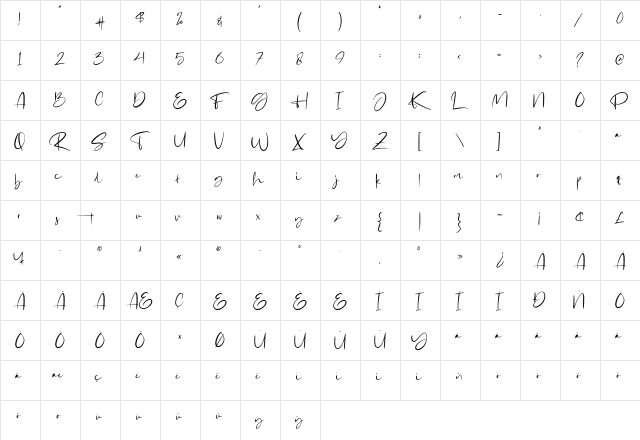
Gabrialle Regular
| Foundry | Stringlabs |
| Designer | Stringlabs |
Design Context for Gabrialle Typeface
Gabrialle is a composed and adaptable typeface that performs quietly and consistently across a wide range of design contexts.